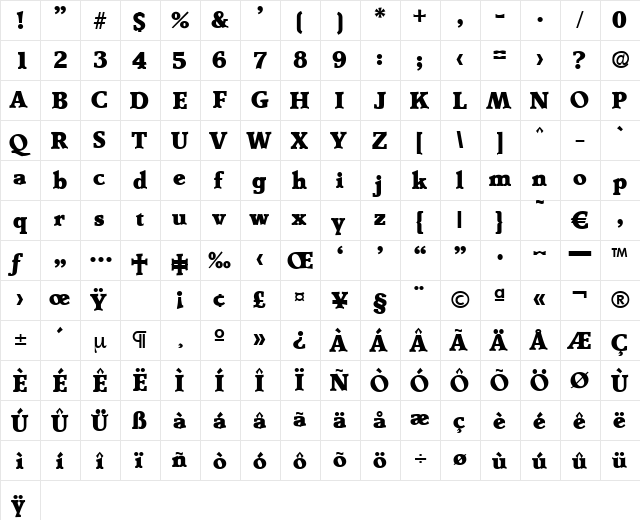
Derringer-Heavy Regular
Design Context for Derringer-Heavy Typeface
Derringer-Heavy takes a measured approach to typography — its balanced proportions and neutral character make it a reliable workhorse for both digital and print work.